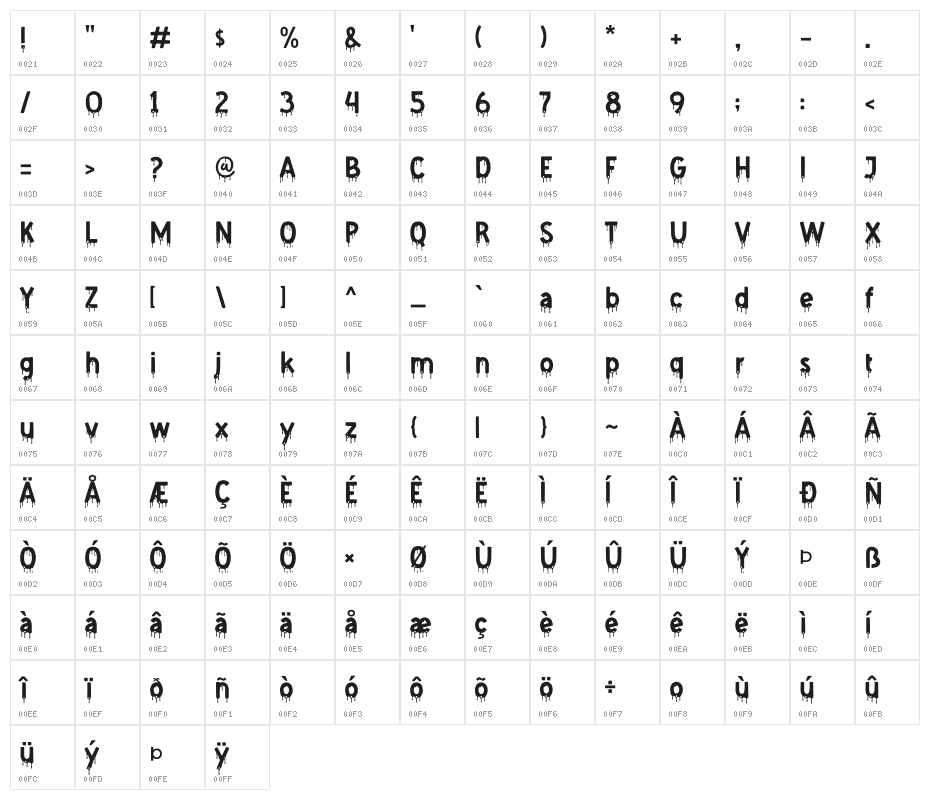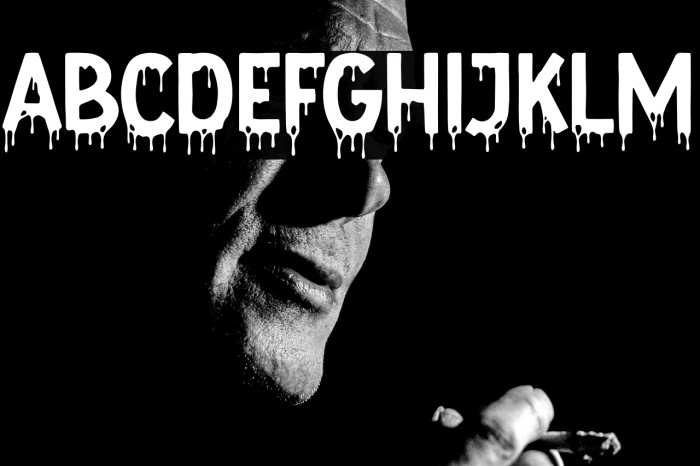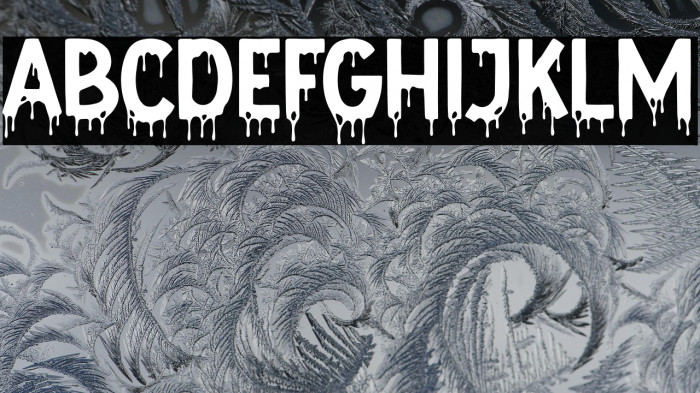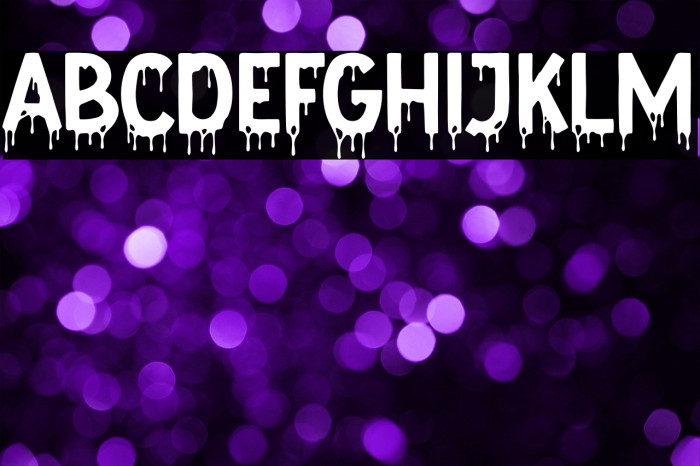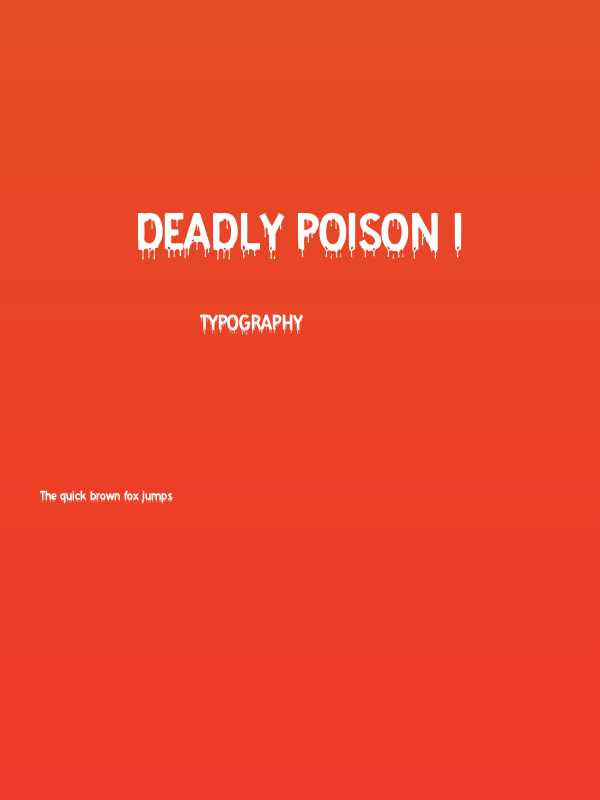
DEADLY POISON I Font
DEADLY POISON I Description
This font features a unique and eye-catching design with a dripping effect that gives it a spooky, eerie appearance. The characters are bold and have a consistent thickness, with the distinctive drip effect adding a sense of movement and fluidity. The uppercase and lowercase letters maintain a uniform style, while the numbers and special characters are designed to match the overall theme. This font is ideal for projects that require a dramatic and thematic touch, such as Halloween-themed designs, horror movie posters, or any creative work that aims to evoke a sense of mystery and intrigue.